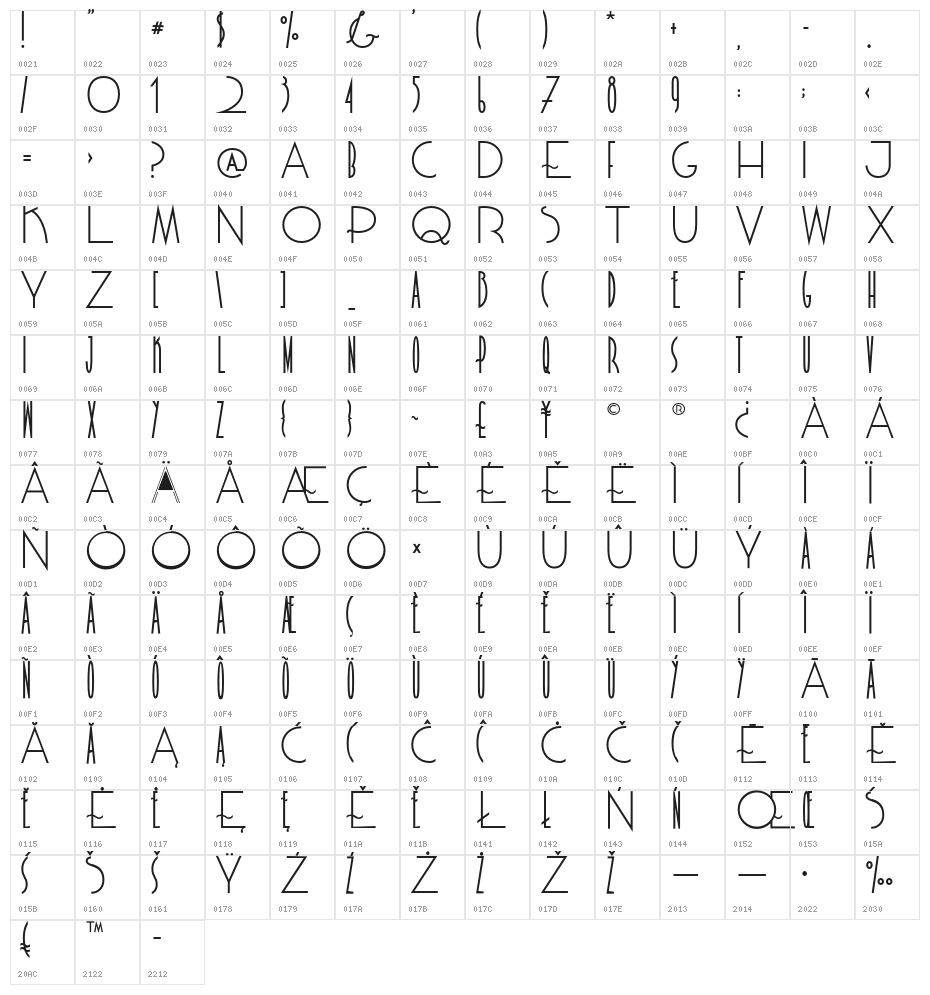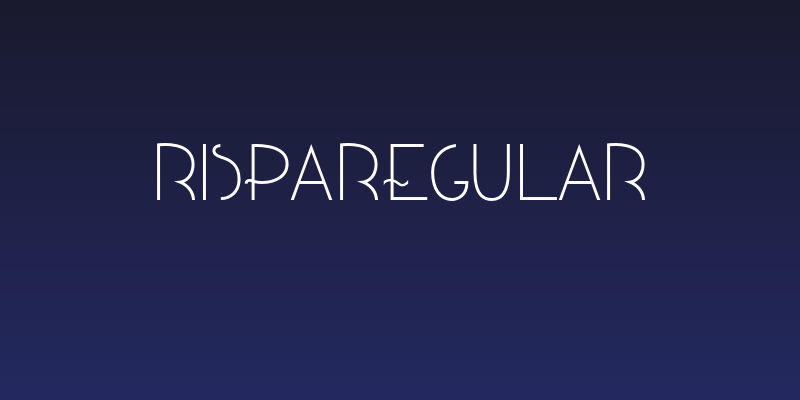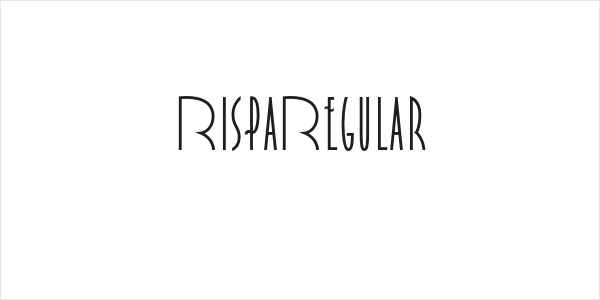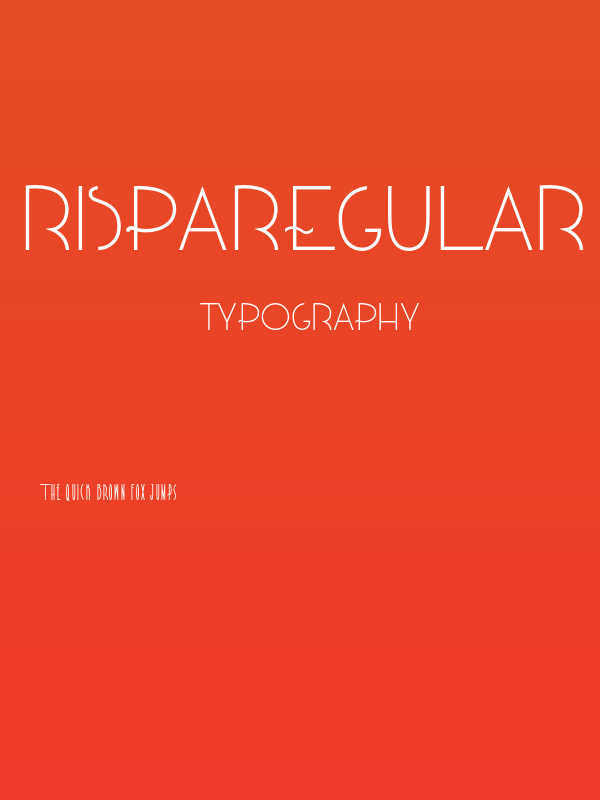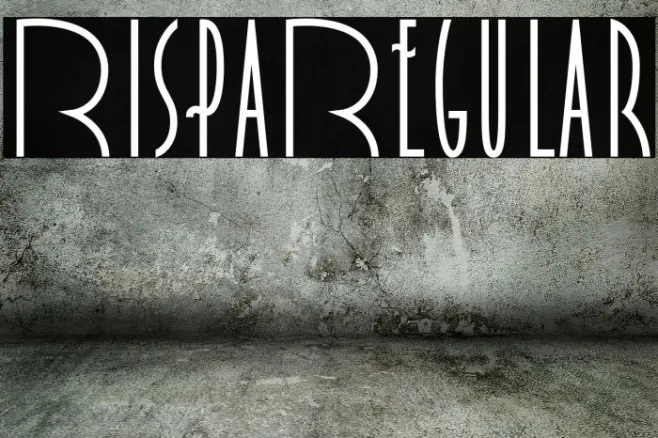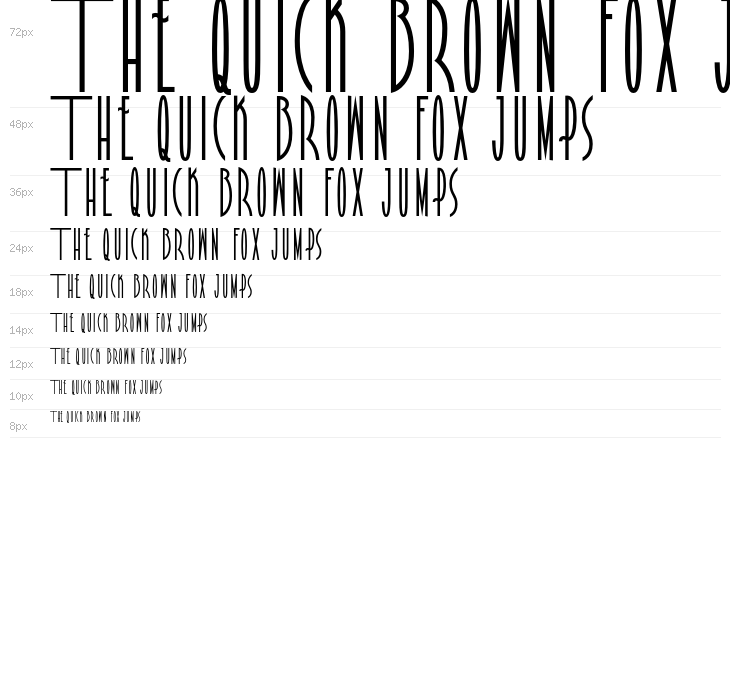
RispaRegular Font
RispaRegular Description
This font features a unique blend of geometric and artistic elements, characterized by its tall, slender letterforms and subtle curves. The uppercase letters have a distinct modern flair, with some characters incorporating unexpected angles and lines that add a touch of sophistication. The lowercase letters maintain a consistent style, offering a harmonious balance between readability and aesthetic appeal. The numerals are designed with a similar elegance, ensuring they complement the overall look. Special characters are thoughtfully crafted, maintaining the font's cohesive style. This font is ideal for projects that require a modern yet artistic touch, making it suitable for branding, editorial design, and creative projects.
| Overall Style | Modern, Artistic |
| Use Case | Headlines, Logos, Artistic displays |
| Proposed Projects | Ideal for branding, editorial design, creative projects, and artistic displays. |